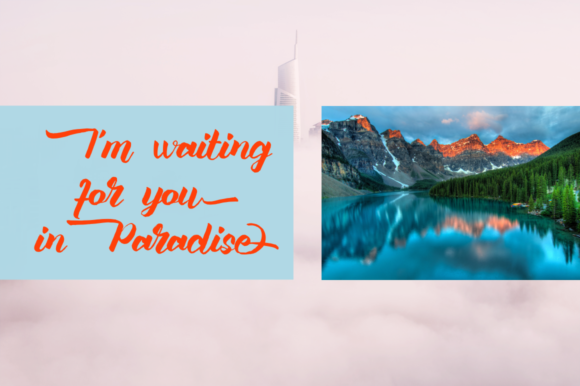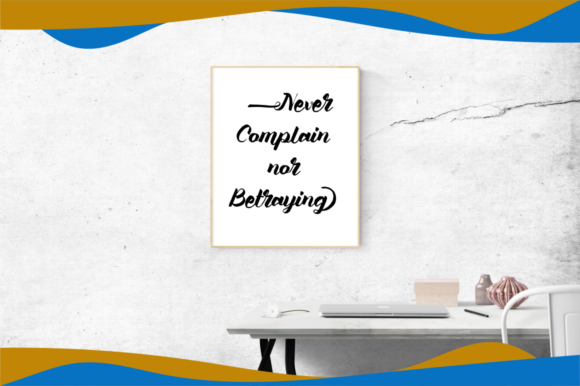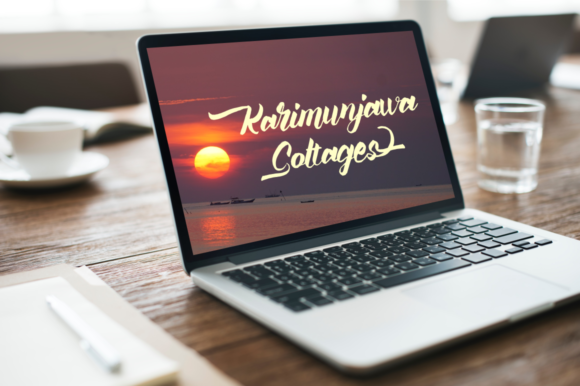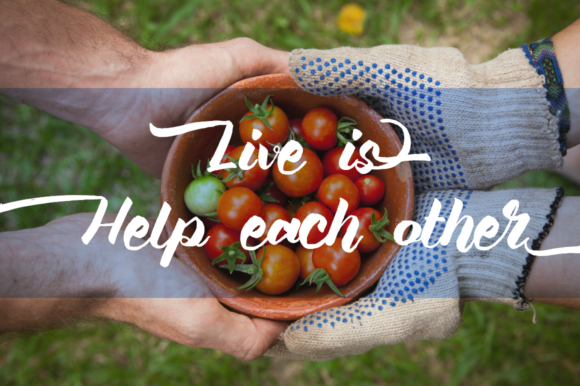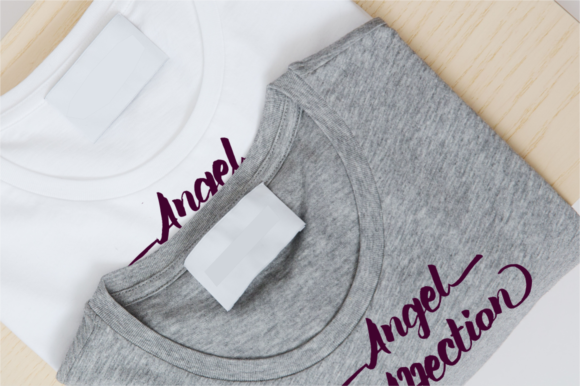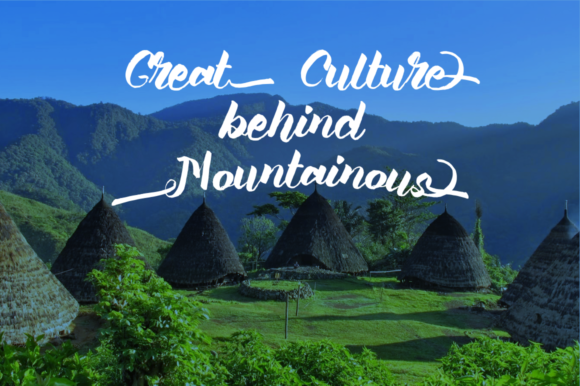
The Perfect Blend of Elegance and Boldness: Introducing Angellife Font
You’ve been staring at a blank canvas, trying to bring your design project to life. The cursor blinks away, and your mind starts racing with ideas. Suddenly, the perfect font pops into your head – one that exudes elegance and sophistication, yet packs a bold punch. This is where Angellife Font comes in, a game-changing brush font that will take your designs to the next level.
Angellife Font is designed to add a touch of authenticity to any design project. With its unique blend of elegance and boldness, it’s the perfect choice for designers looking to create stunning visuals. Whether you’re working on a branding project, a marketing campaign, or a digital product, Angellife Font is sure to inspire and captivate your audience.
Key Features of Angellife Font
- Font Family: Angellife is a beautiful, elegant font family that includes 6 styles: Thin, Light, Regular, Medium, Bold, and Black.
- Unique Characteristics: Angellife features a unique, hand-drawn design with flowing curves and subtle flourishes, making it perfect for creative and elegant typography.
Designer Review: Angellife Font
When I first saw the Angellife Font, I was immediately drawn in by its whimsical and playful feel ✨. The combination of bold lines and rounded edges creates a unique aesthetic that’s sure to grab attention. I appreciate how the font can be used for a variety of purposes, from children’s books to greeting cards and more.
One of the standout features of Angellife Font is its customizability. The font comes in multiple weights and styles, allowing designers to create a cohesive look and feel for their projects ✨. The font also includes a range of ligatures and swashes, which add an extra touch of personality to any design.
While the Angellife Font is a great choice for many projects, there are some limitations to consider ⚠️. The font may not be suitable for large blocks of text, as the irregular spacing and letterforms can make it difficult to read. Additionally, the font’s whimsical nature may not be the best fit for more formal or corporate projects.
Overall, I would recommend the Angellife Font for designers who want to add a touch of personality and whimsy to their projects ✨. While it may not be the best choice for every project, it’s a great option for those looking to create something truly unique and eye-catching.
- Whimsical and playful aesthetic
- Customizable weights and styles
- Ligatures and swashes for added personality
- Not suitable for large blocks of text
- May not be the best fit for formal or corporate projects
Getting the Most Out of Angellife Font
For the best results, use Angellife Font in conjunction with light-colored backgrounds and subtle textures.
Experiment with different font sizes and styles to create visual interest and hierarchy.
Combine Angellife Font with other elegant fonts for a sophisticated look.
Angellife Font is ideal for:
Printable art and wall decor
Alternatives to Angellife Font
Great Vibes is a modern, elegant, and cursive script font. It’s ideal for use in headings, titles, and body text where a touch of sophistication is desired. Great Vibes is similar to Angellife Font in its flowing and handwritten style, but it has a more refined and polished appearance.
Alex Brush is a beautiful, handwritten font with a unique and artistic flair. It’s perfect for use in creative projects, such as invitations, greeting cards, and advertising materials. Alex Brush has a similar organic feel to Angellife Font, but it’s more versatile and can be used in a wider range of contexts.
Carolyna Pro is a stylish and modern script font with a feminine touch. It’s ideal for use in fashion, beauty, and lifestyle branding, as well as in wedding invitations and other creative projects. Carolyna Pro has a similar elegant and refined appearance to Angellife Font, but it’s more contemporary and trendy.